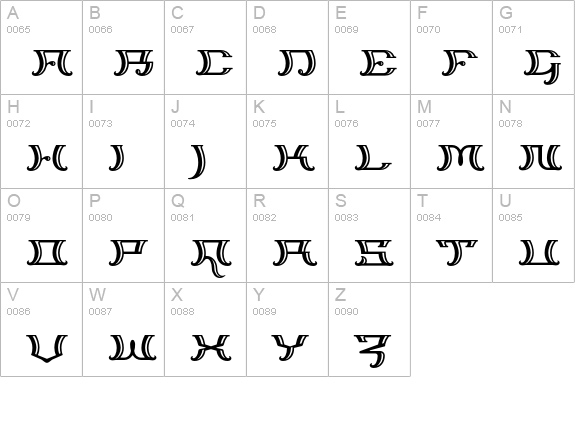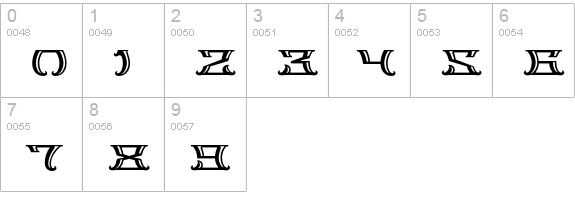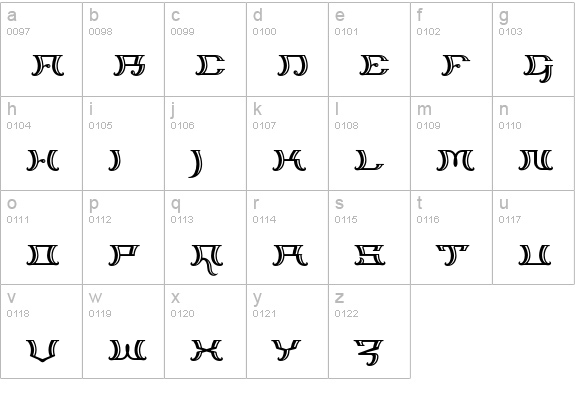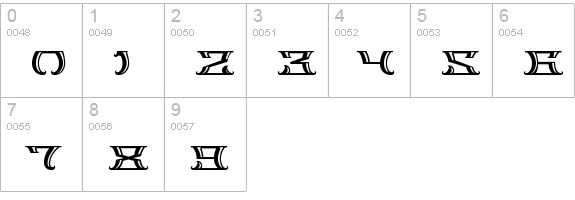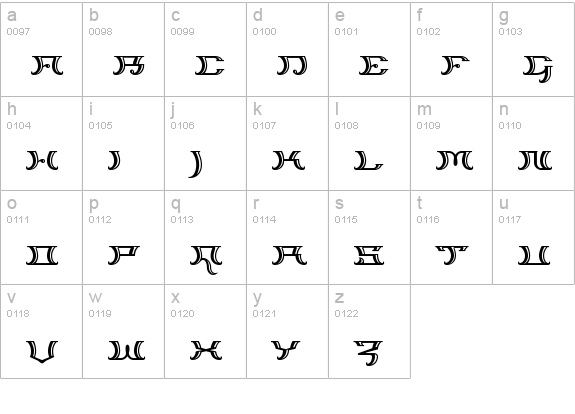
Trillium-Gilded Font Details
Introducing Trillium-Gilded, a beautifully crafted font that encapsulates elegance and sophistication. With its intricate details and graceful curves, this font exudes a sense of luxury and refinement. Trillium-Gilded is perfect for adding a touch of opulence to any project, whether it be a wedding invitation, a prestigious brand logo, or an upscale advertisement. Its timeless design ensures that it will never go out of style, making it a versatile choice for both print and digital media. This font's exquisite appearance is complemented by its versatility. It can be used for both headlines and body text, allowing for seamless integration across various design layouts. Its legibility remains unparalleled, ensuring that your message is communicated clearly and effectively. What sets Trillium-Gilded apart is its stunning gilded finish. Each character is meticulously adorned with a golden sheen, adding an extra layer of sophistication and grandeur. This intricate detailing truly sets this font apart from the rest, making it a standout choice for those seeking a touch of luxury. The best part? Trillium-Gilded is freely available to download at FontsMarket.com. This means that you can easily access this font and incorporate it into your designs without any additional cost. Embrace the elegance of Trillium-Gilded and elevate your projects to new heights of beauty and refinement.